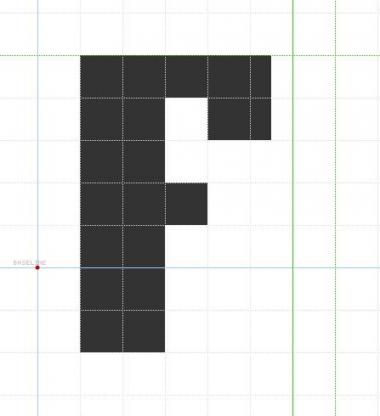
These are fun. It’s rare to see wide-format images on fontstruct due to the 380 px width restriction. Demonstrating the effectiveness of a fontstruction at small sizes is an under-utilized approach, IMHO.
The family is growing well. A good solid slab design. 10/10
It might be worth taking the letter spacing on the 'f' one square to the left (to avoid the large white space between 'f' and other letters) ...
"f" is now fixed, thanks to p2pnut advice =) Thank you guys for such good tips!! I'll keep this in mind.
Great font, cool samples, amazing family.